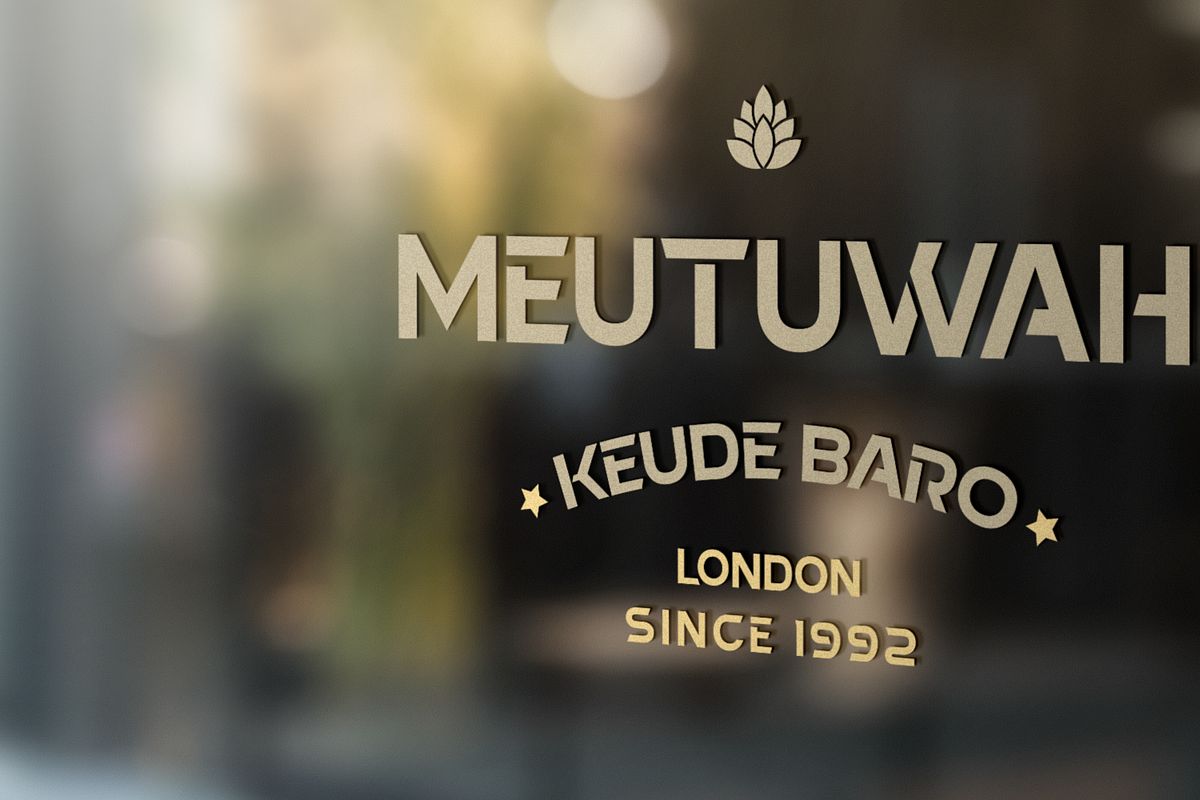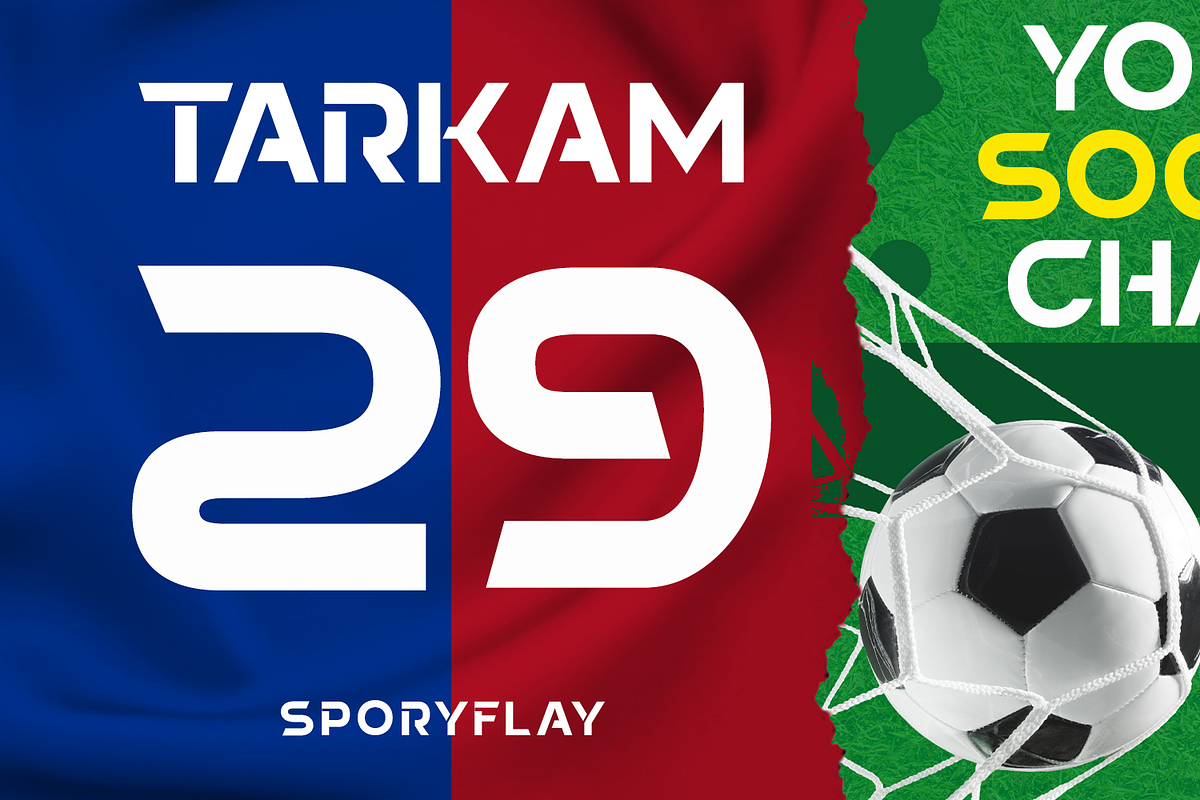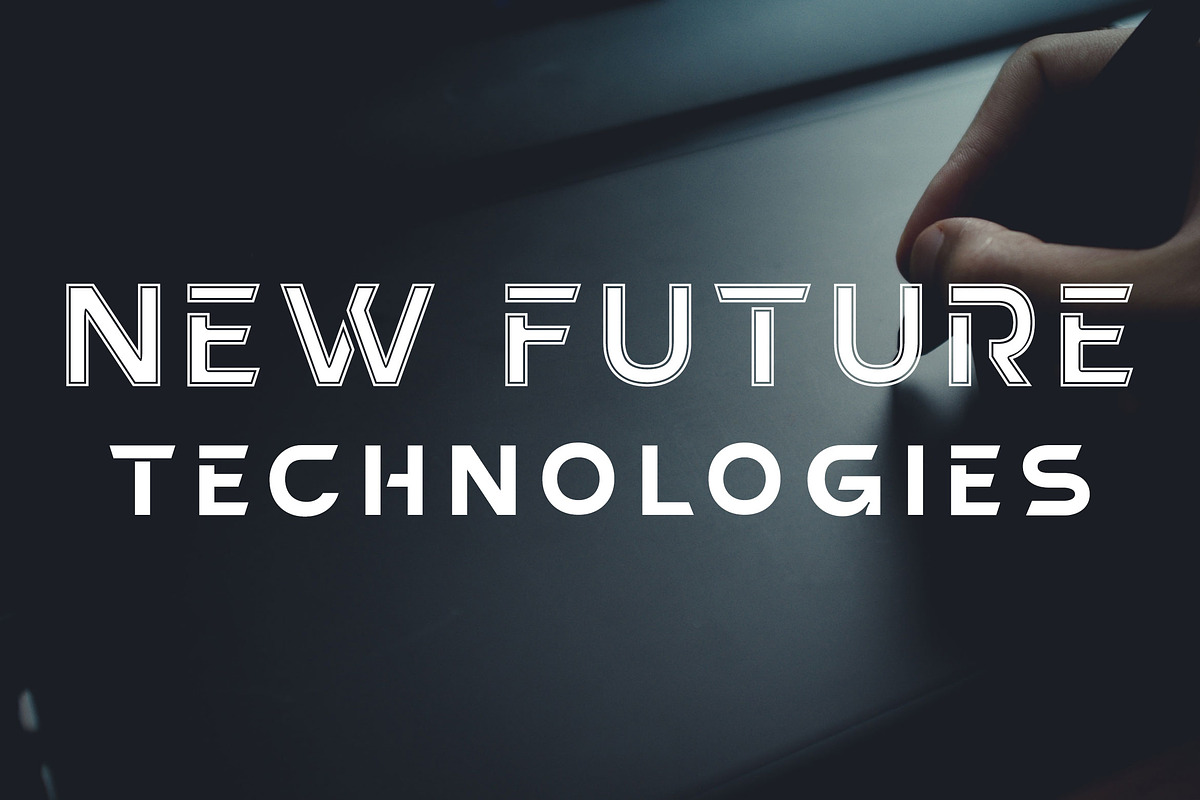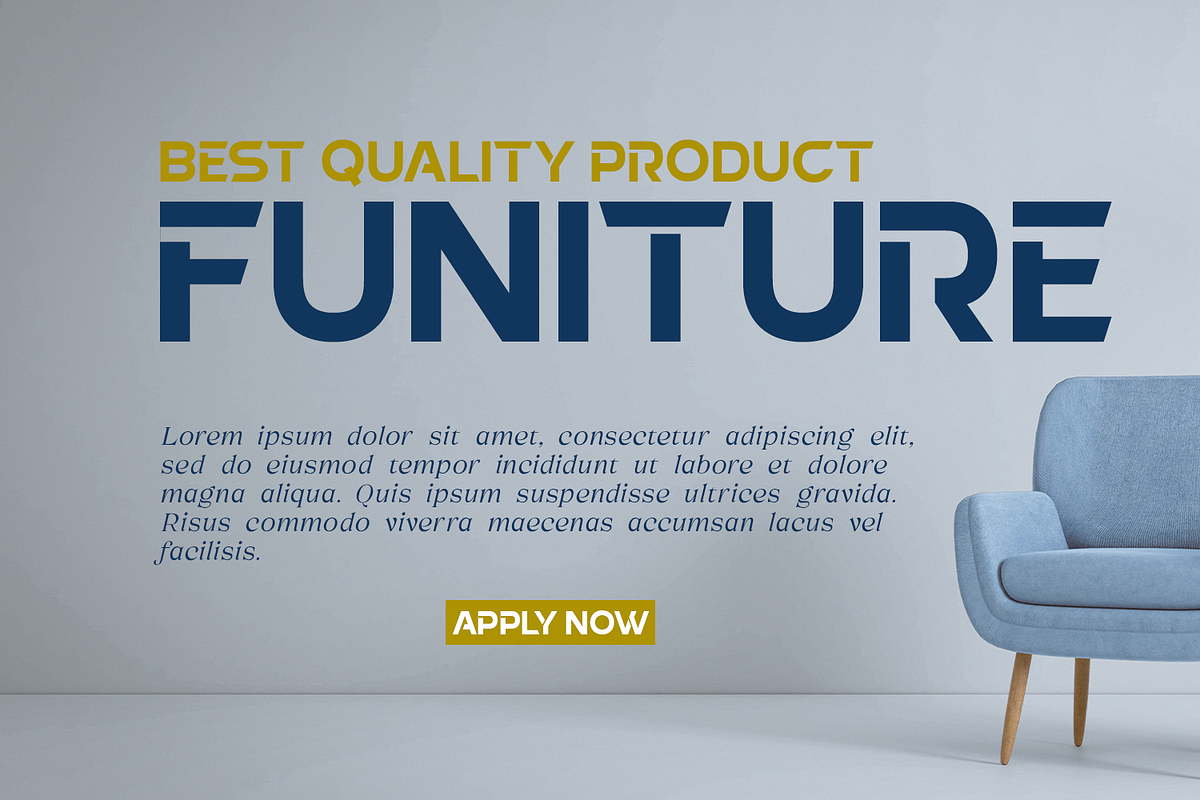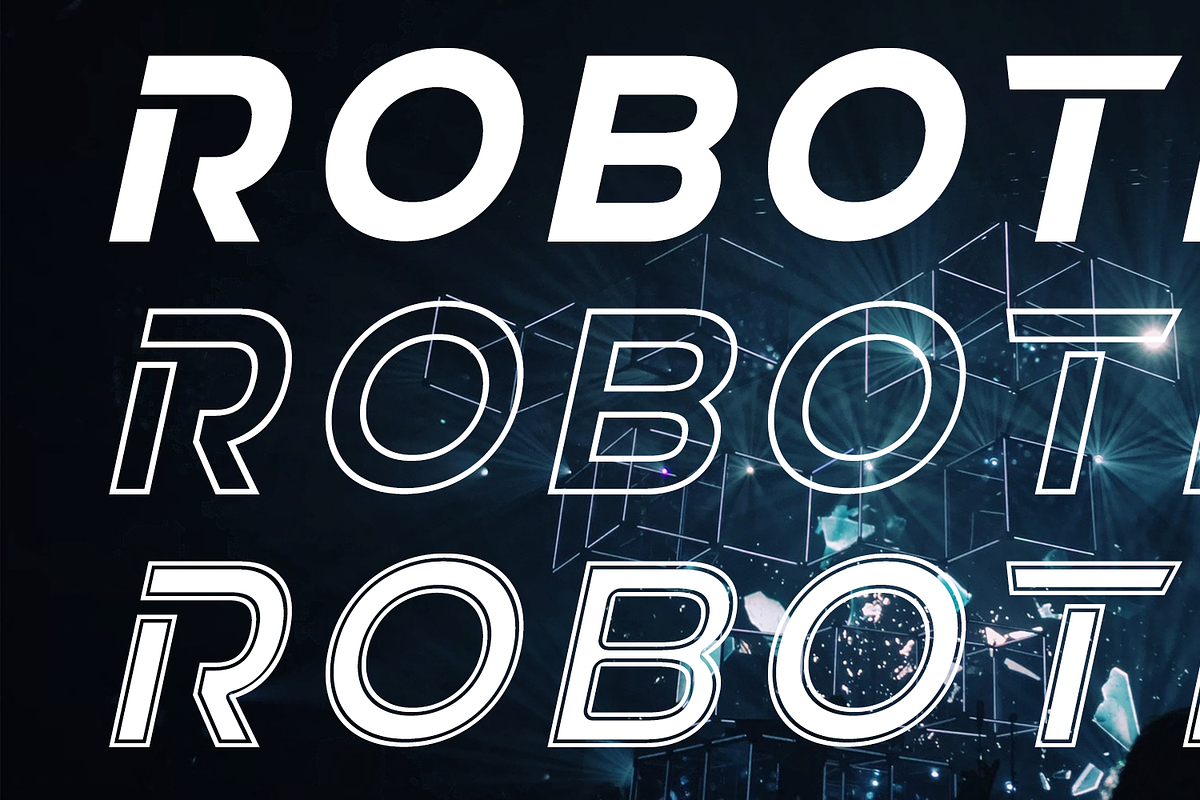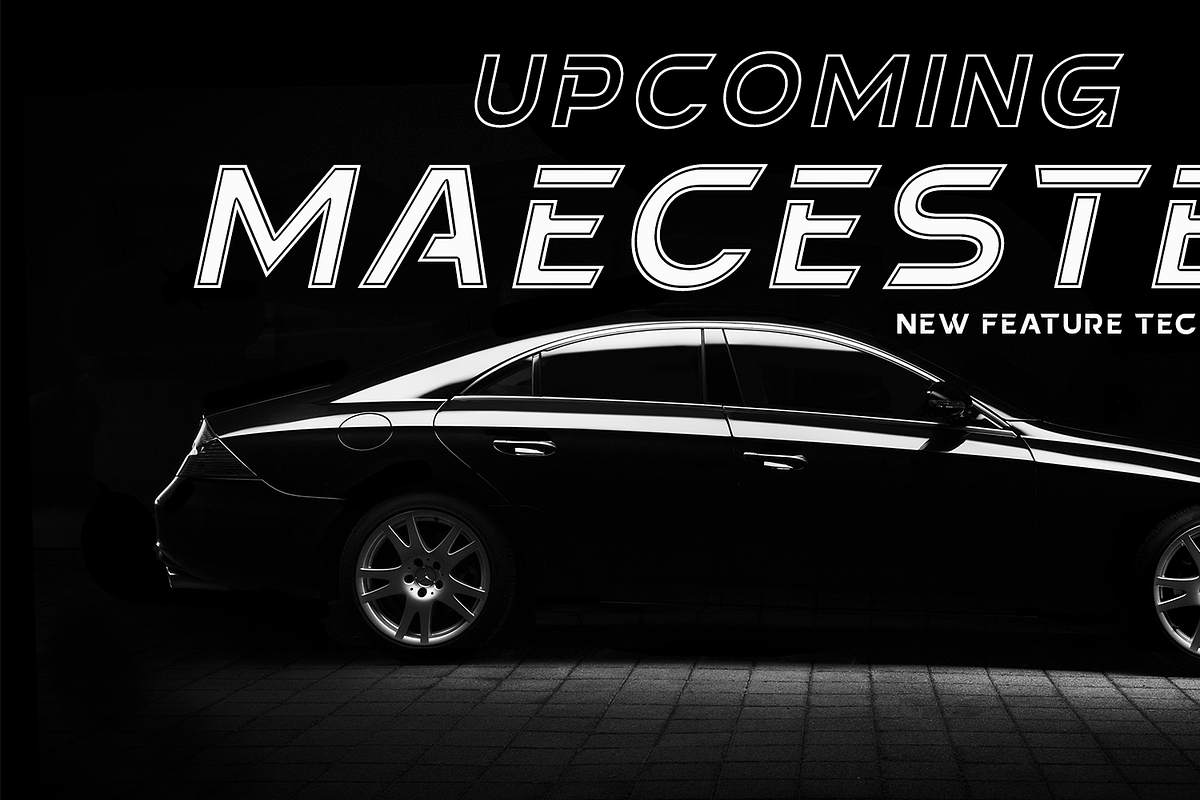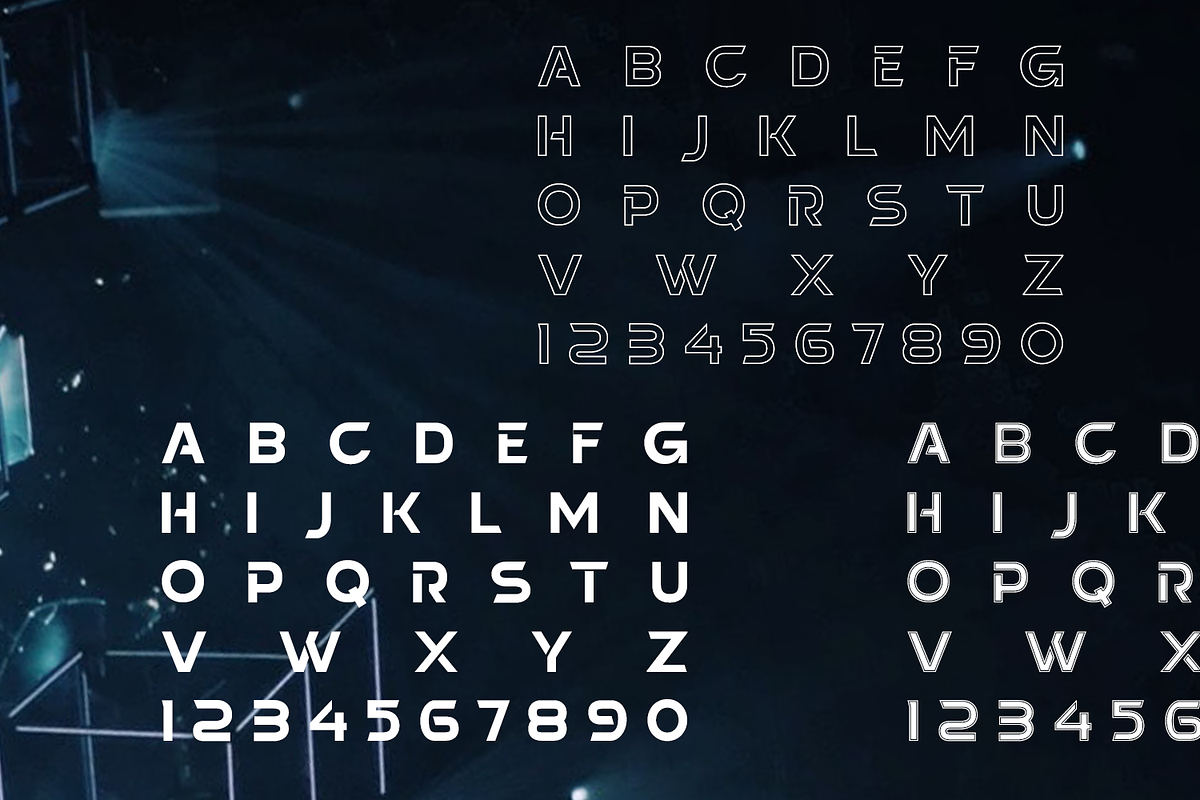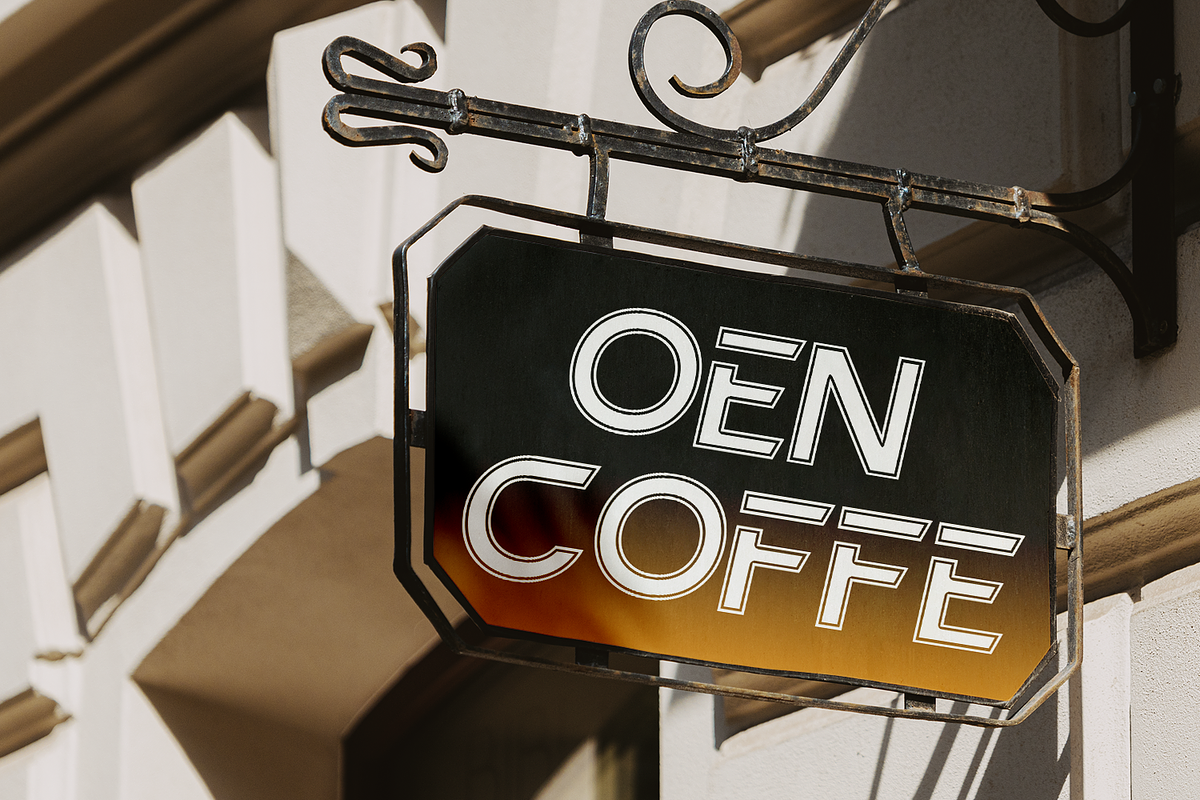
New Future -Technologies Modern Font
New Future is a cutting-edge font designed to elevate your digital projects. With its sleek and futuristic design, this font is perfect for tech-related content, software interfaces, and website headers. comes in tre variations, regular, Outline, and outline Dc. and also equipped with italic oblique. New Future is a Modern Sport Technologies Sans Serif font that special created for Sport and Technology design needs with Modern style.